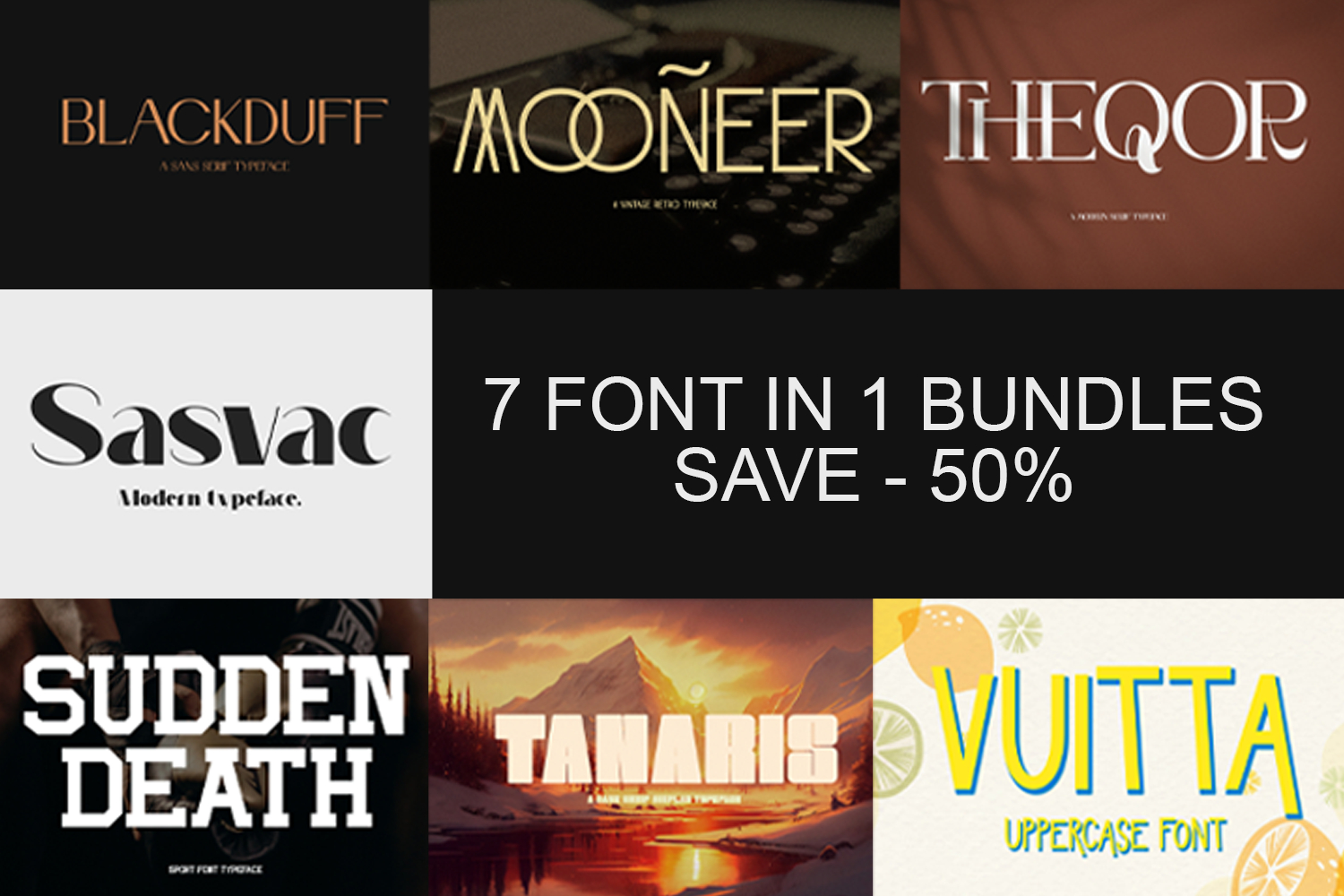
The Ultimate Modern Display & Serif Font Bundle - 7 Typeface
This curated collection features 7 high-impact, uniquely styled typefaces designed to give your creative projects a bold and professional edge. From luxury modern serifs to retro-vintage display fonts and powerful athletic sports fonts, this bundle delivers incredible versatility for any designer or crafter.
✨ What’s Included in This Bundle:
• Blackduff: A sleek and elegant sans-serif typeface, perfect for high-end branding and modern minimalist logos.
• Mooneer: A unique vintage retro typeface with custom flourishes, ideal for nostalgic designs and badges.
• Theqor: A classy, high-contrast serif font that radiates editorial sophistication and luxury.
• Sasvac: A bold, contemporary modern typeface with striking geometric cuts for eye-catching headlines.
• Sudden Death: A rugged, heavy-duty sport font typeface engineered for athletic branding, jerseys, and team merchandise.
• Tanaris: A massive, ultra-bold display typeface perfect for cinematic titles, posters, and adventurous branding.
• Vuitta: A fresh, playful uppercase font that brings a vibrant, casual energy to packaging and social media.